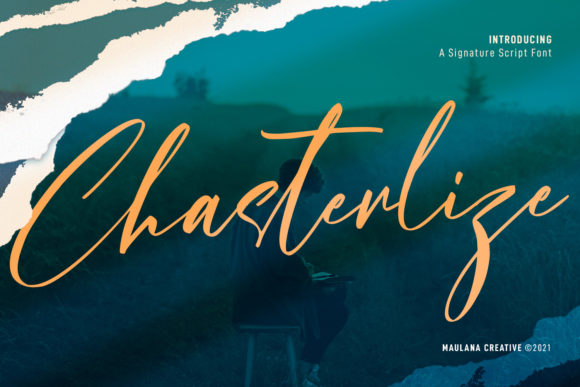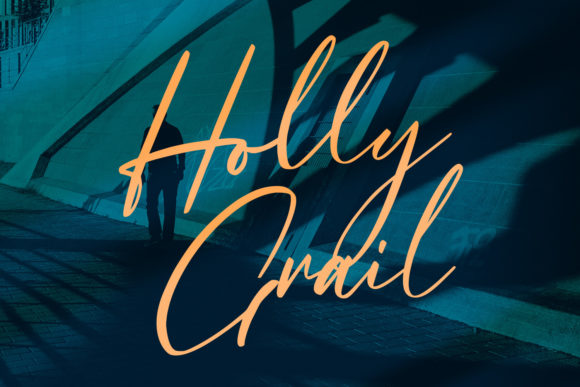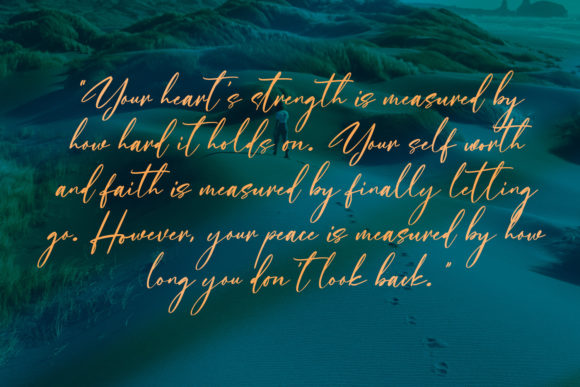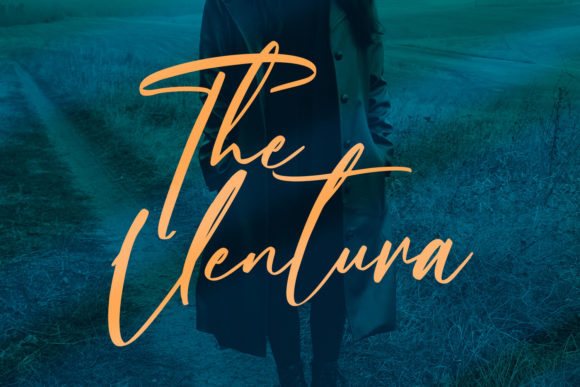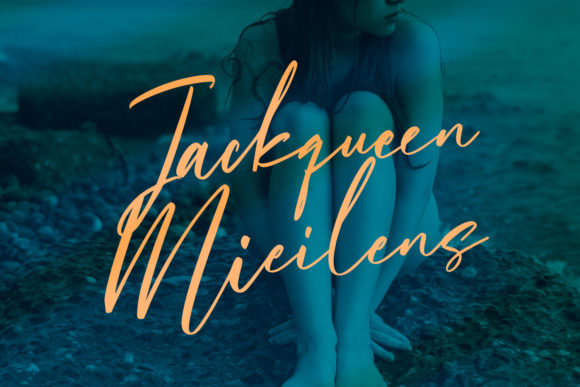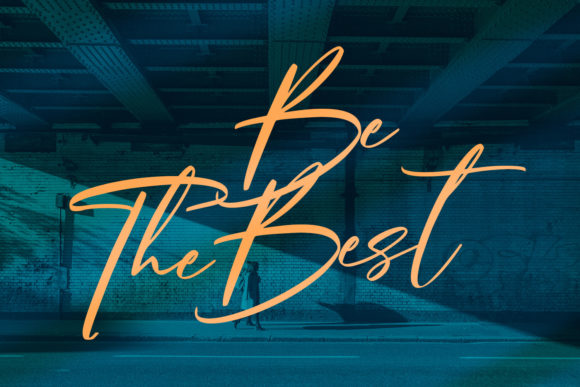
About Chasterlize Script Font
Chasterlize is a slanted signature script font. With regular contrast strokes, fun characters, and unique ligatures and alternates. This font is great for logo design, Social media, Movie Titles, Books Titles, short text, even long text!